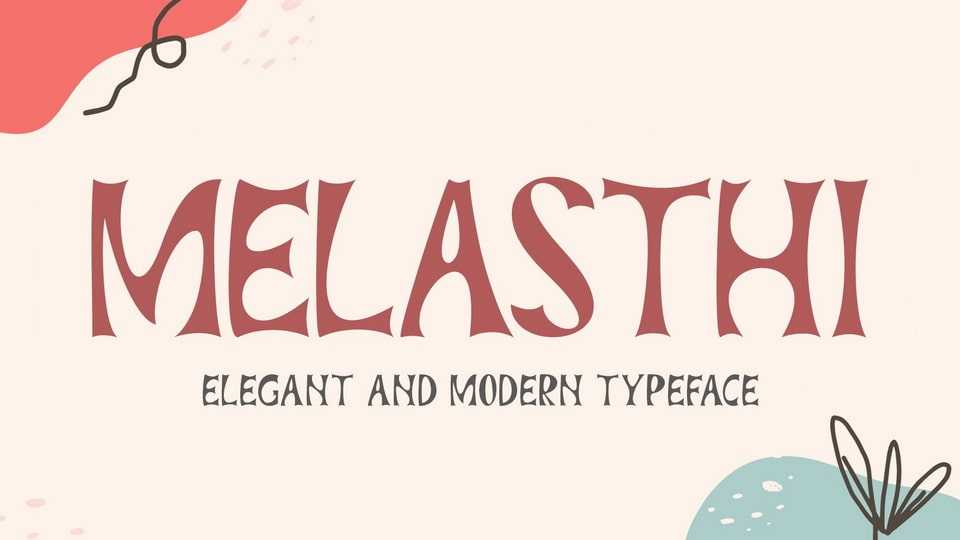
Download Melasthi font, a modern sans serif typeface, very elegant and beautiful. Melasthi is suitable for brochures, invitations, posters, banners, stickers, branding, and more.